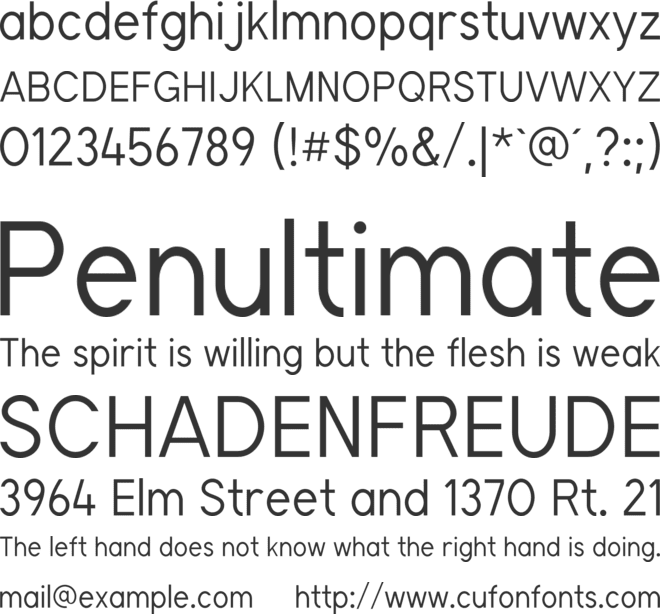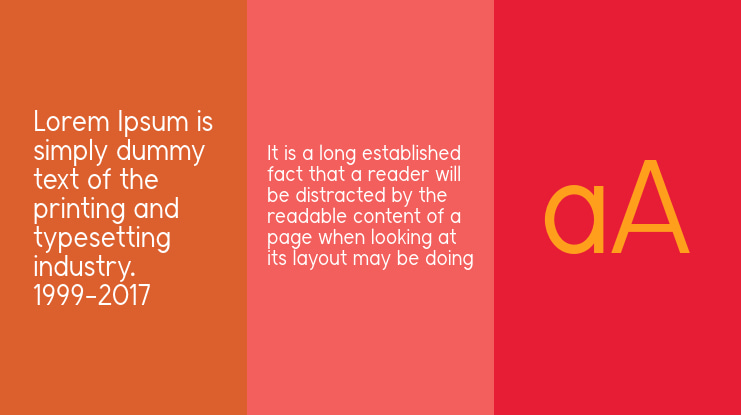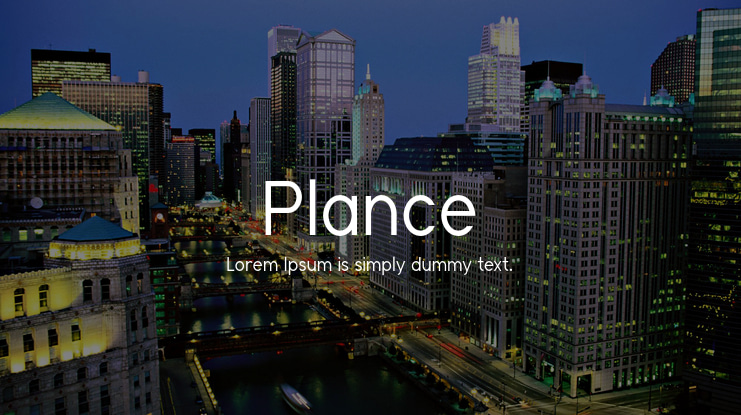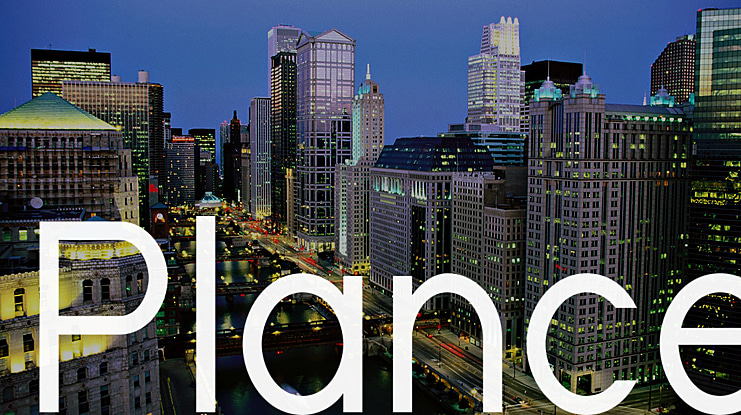
Plance Font
This font designed by Hsan Fonts is a sans serif typeface for simplified logo design. The font is suitable for creating headlines, logos, text and advertising tags